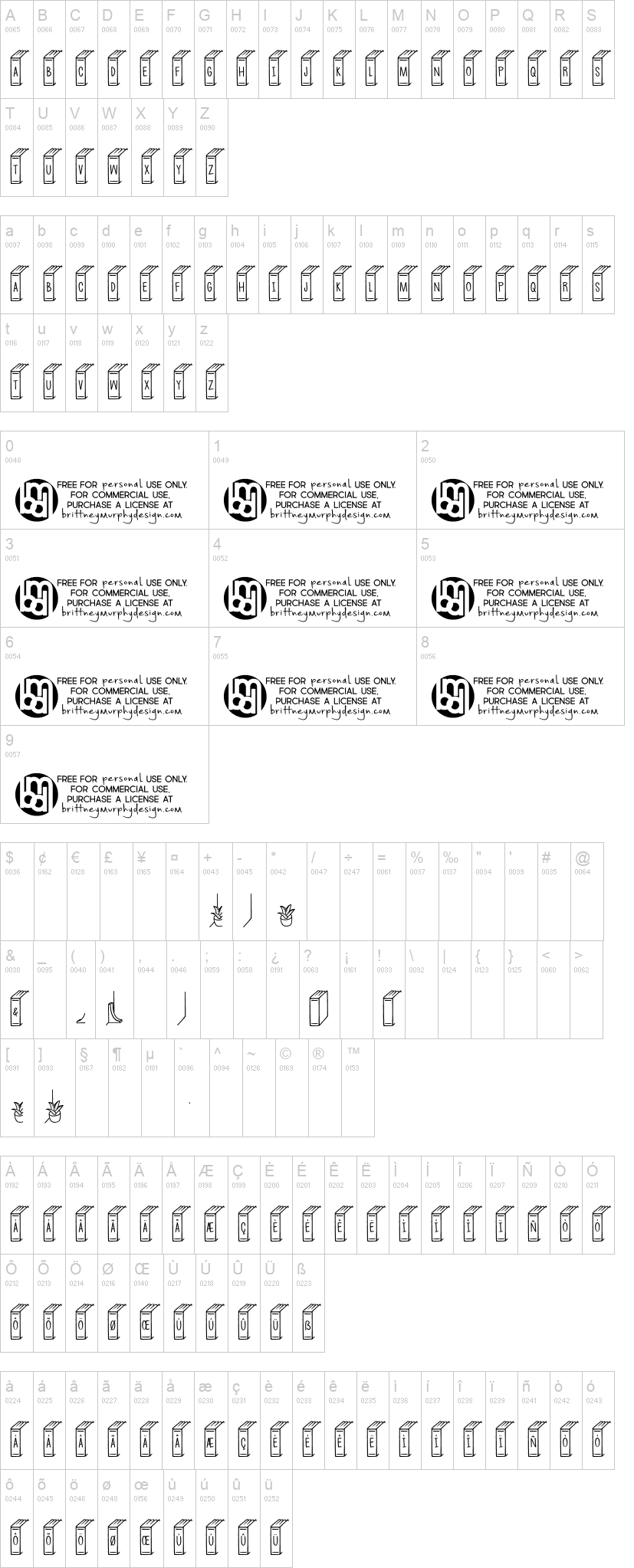
Font contains standard alphabet with foreign language support, plus numbers and an ampersand.
Special Characters:
() = bookends
[] = aloe vera bookends
+ = aloe vera between books
space or . or - = book completion
* = aloe vera plant by itself
! = empty connecting book
? = empty completed book